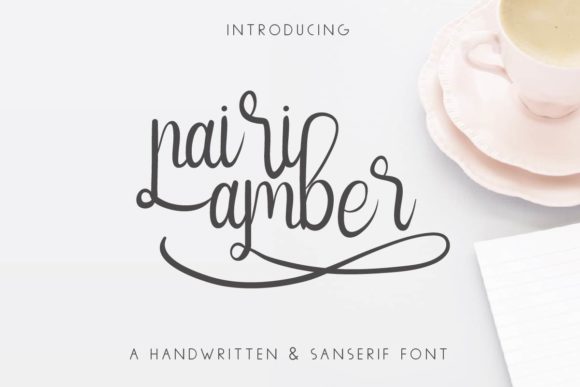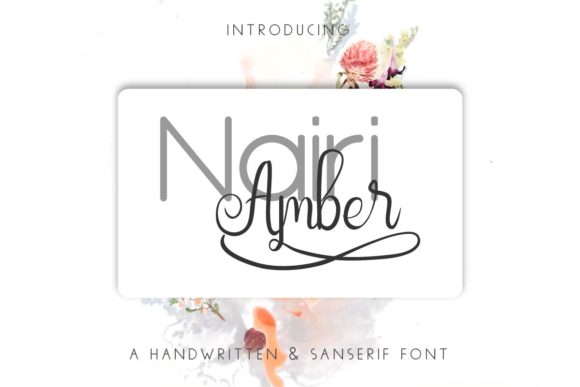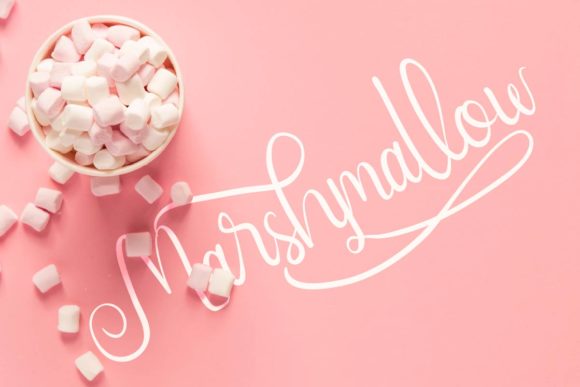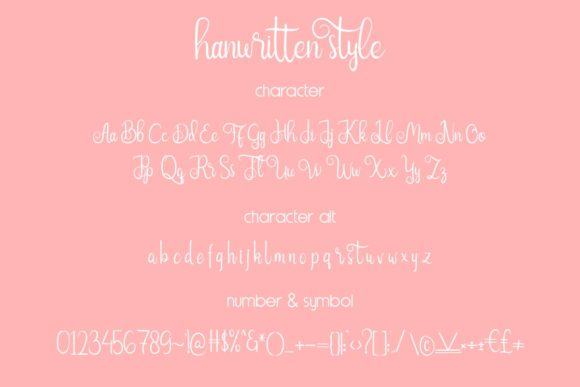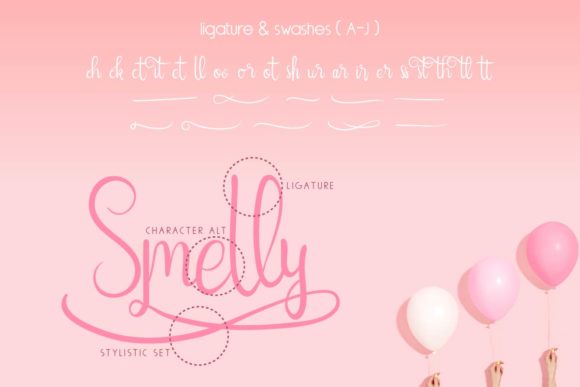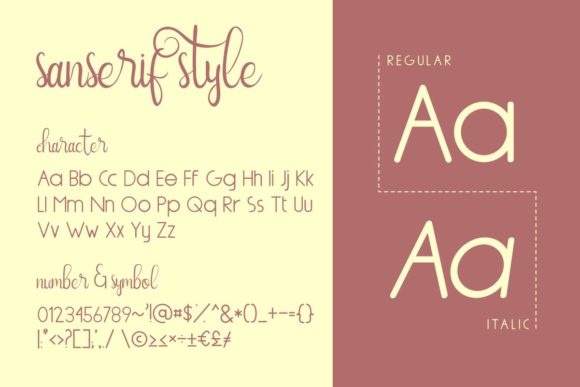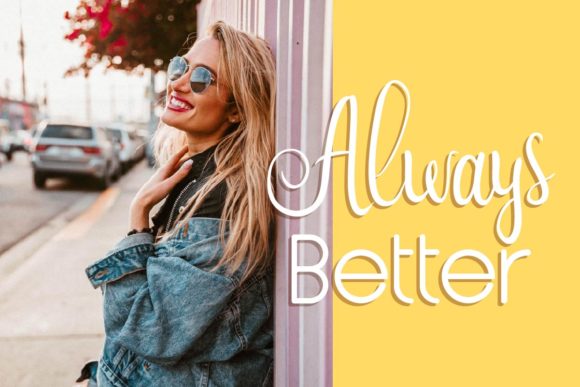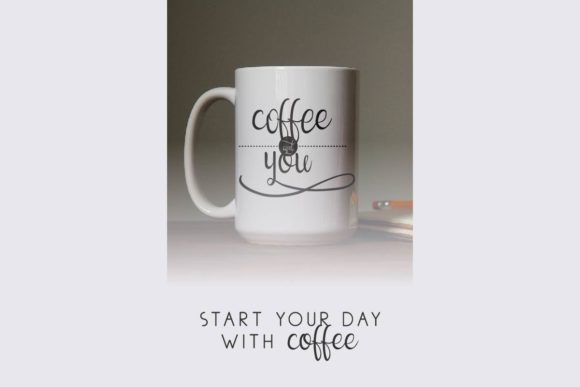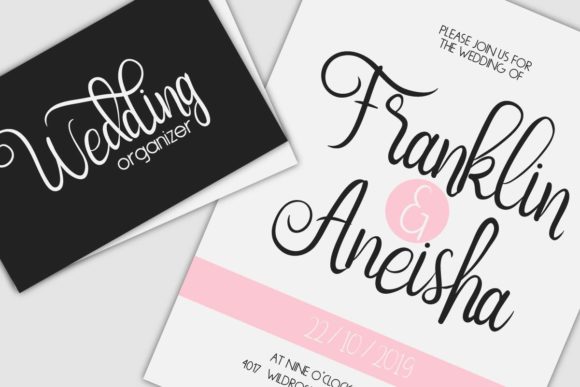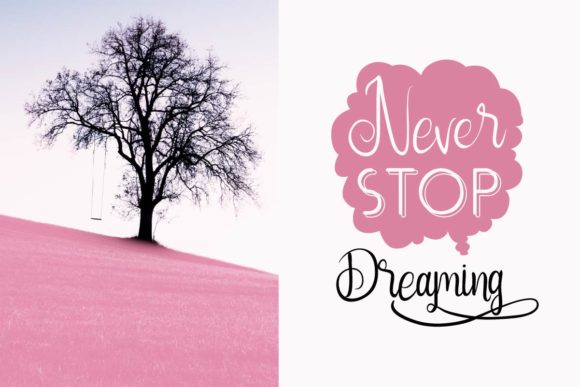
Nairi Amber Font
About Nairi Amber Font
Nairi Amber is an equally sweet and casual handwritten font. Full of authenticity, it will turn any design project into a true standout!